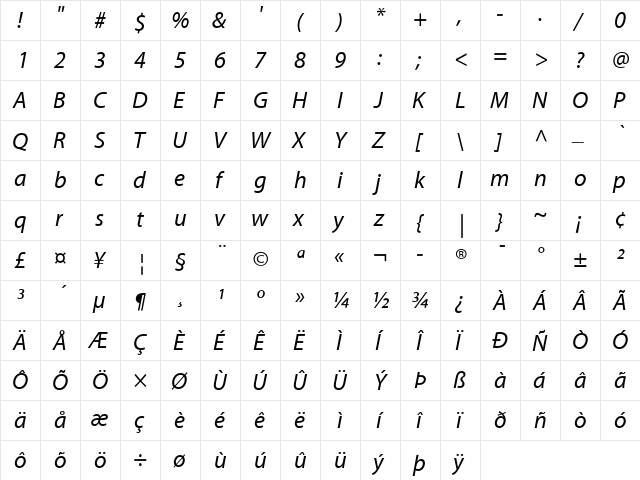
Myriad Roman Italic Font Preview
Myriad Roman Italic
Myriad Roman Italic Font Details
Design Context for Myriad Roman Typeface
Myriad Roman is a composed and adaptable typeface that performs quietly and consistently across a wide range of design contexts. The slanted form adds forward momentum and visual energy.
Pro Tip: Use Myriad Roman for emphasis, pull quotes, and subheadings where its slanted energy can add rhythm to the layout.